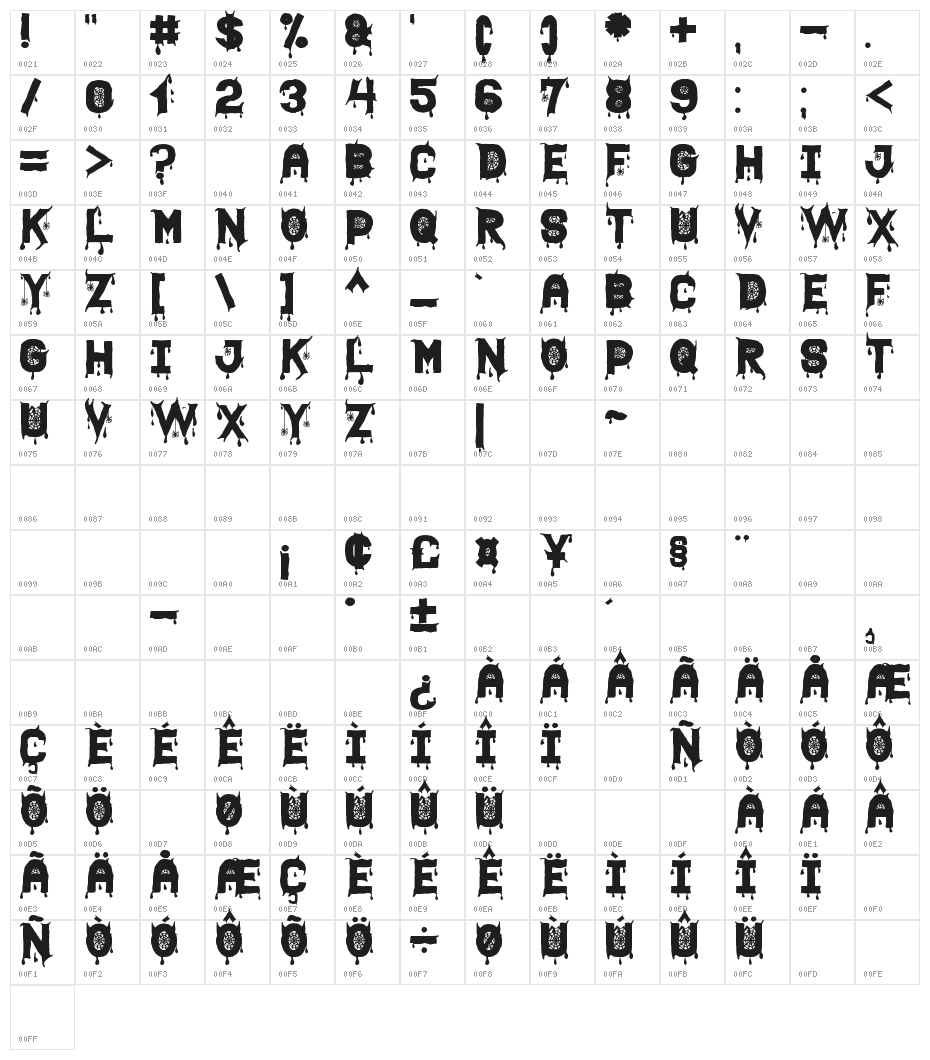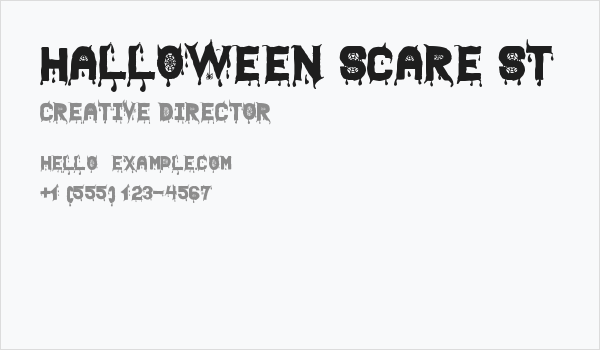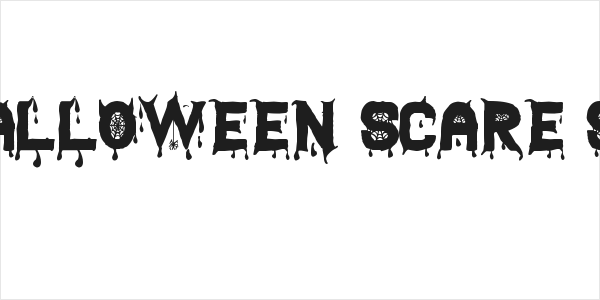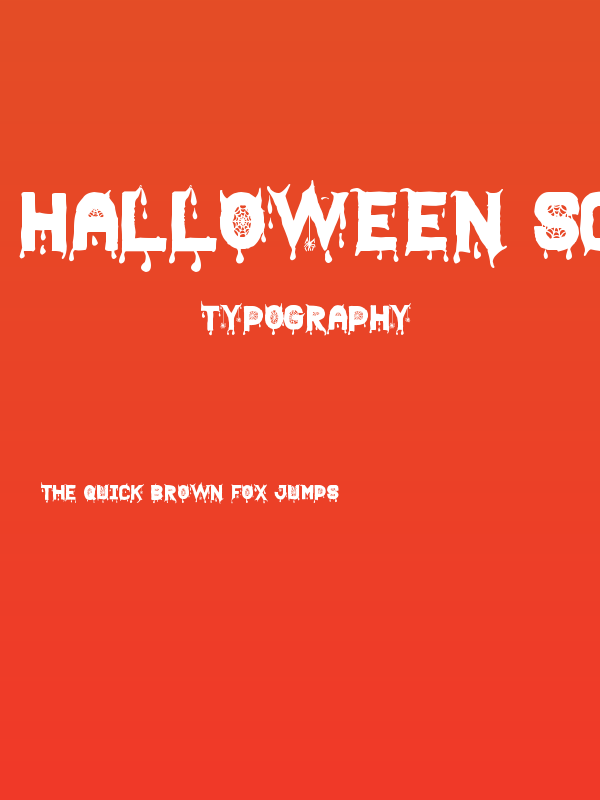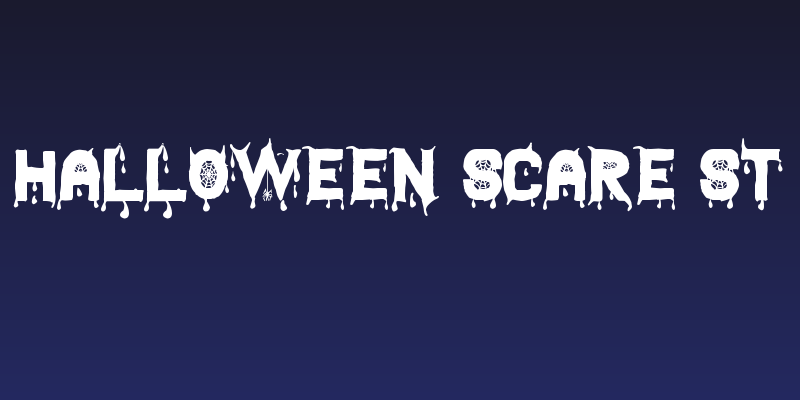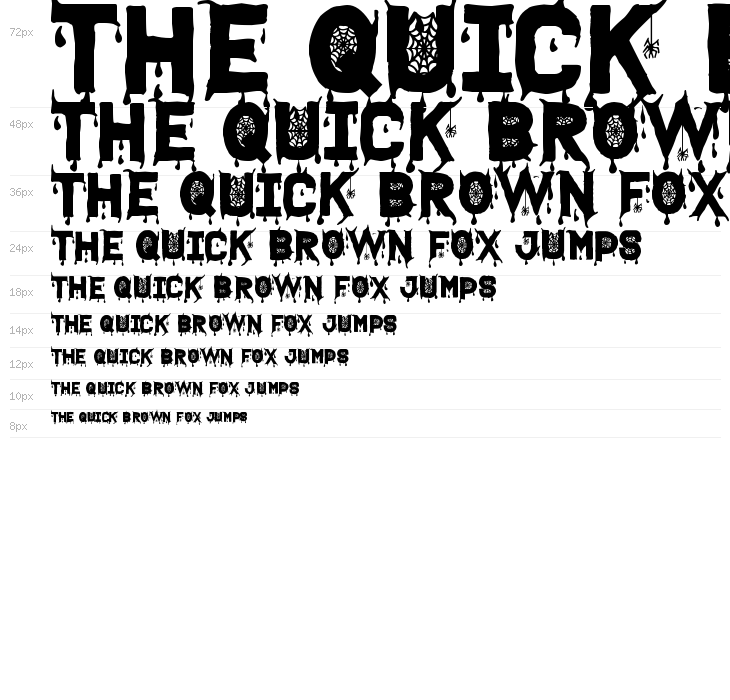
Halloween Scare St Font
Halloween Scare St Description
This font embodies a spooky, Halloween-inspired aesthetic with its dripping, eerie design. Each character is adorned with cobwebs and dangling elements, creating a chilling and atmospheric effect. The uppercase and lowercase letters maintain a consistent theme, with bold, thick strokes that enhance the horror vibe. The numbers and special characters follow suit, incorporating similar decorative elements that make them stand out. This font is perfect for creating a haunted, mysterious atmosphere, ideal for Halloween-themed projects or any design requiring a touch of the macabre.
| Proposed Projects | Ideal for Halloween invitations, horror movie posters, themed party decorations, and spooky event flyers. |